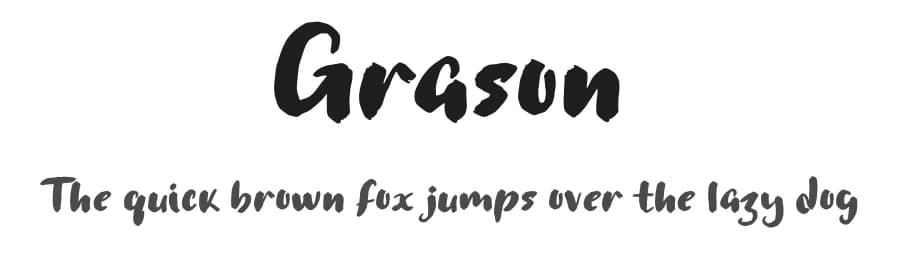
About Grason Font
Grason Font is a script font that shines as a display or heading face. Pair it with a clean sans-serif or serif font for body text β the contrast creates a clear hierarchy while the two styles stay balanced and easy to read.
Grason Font